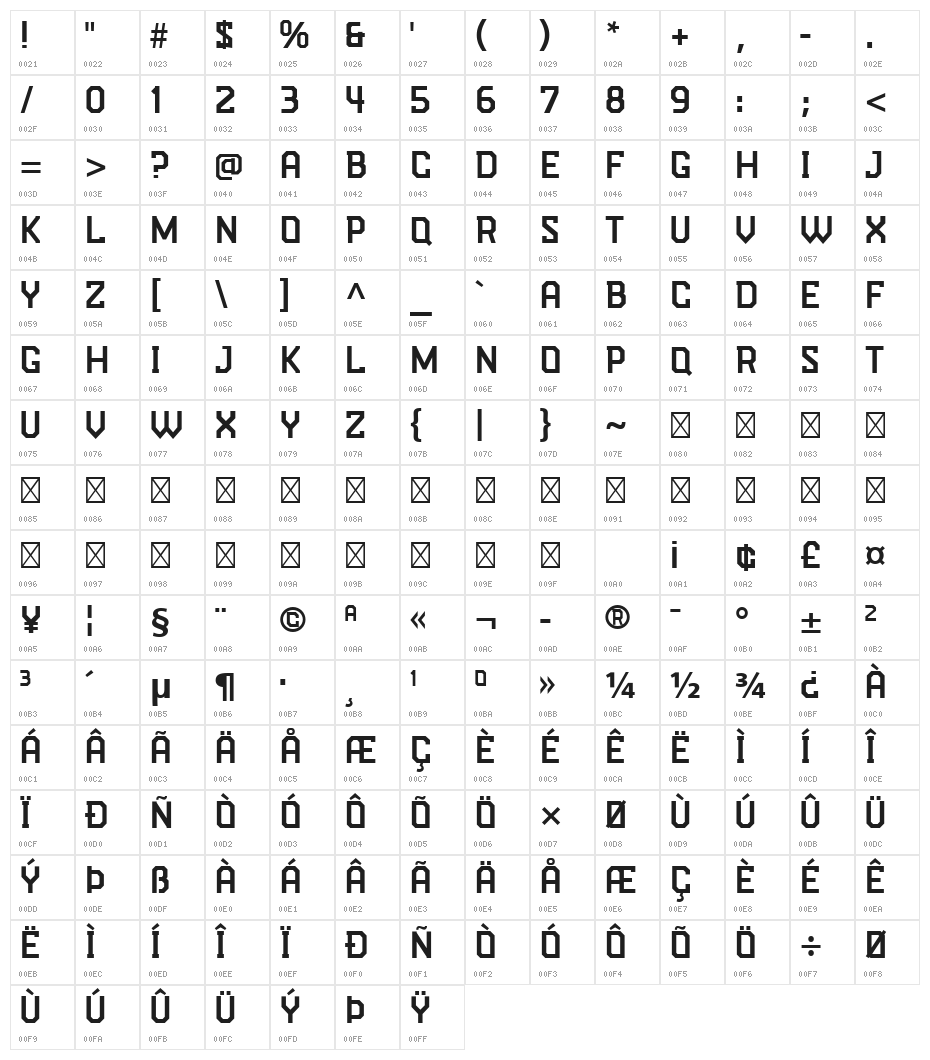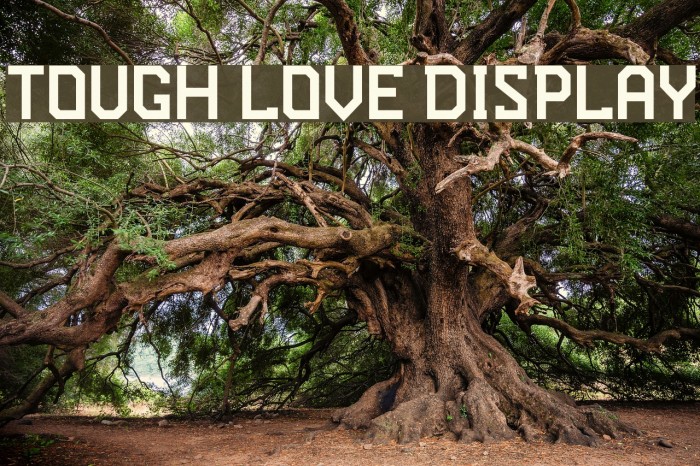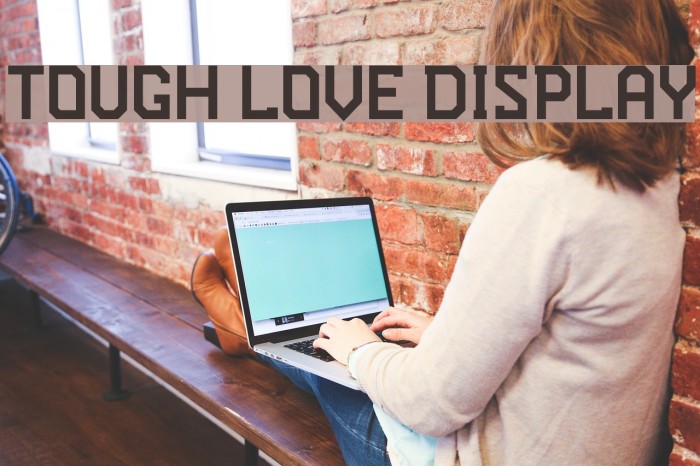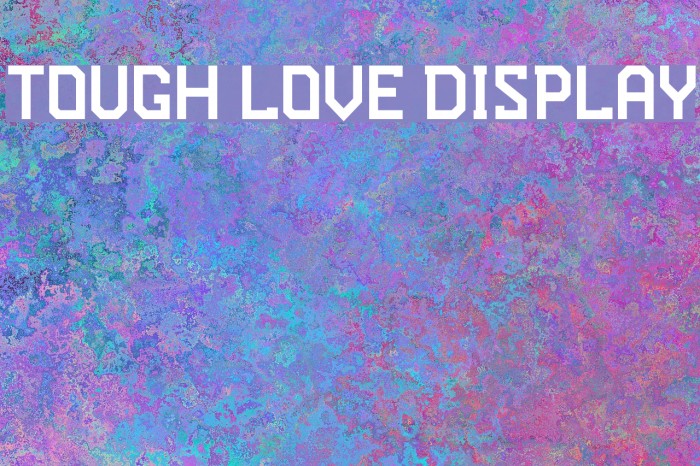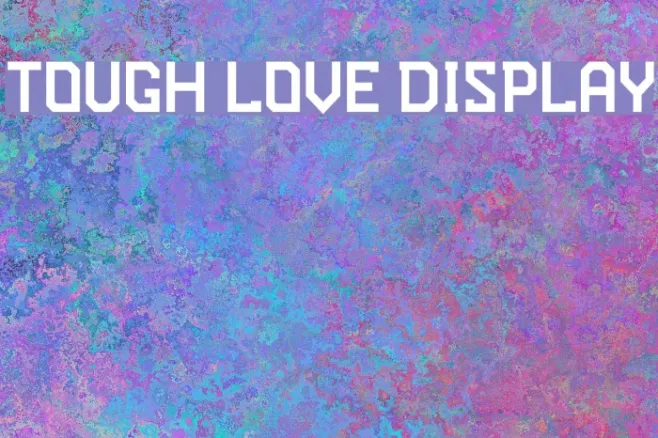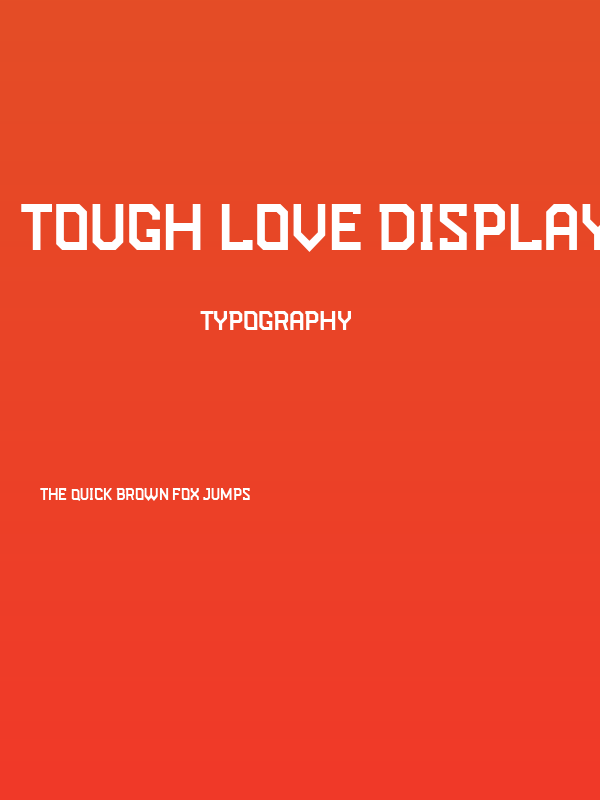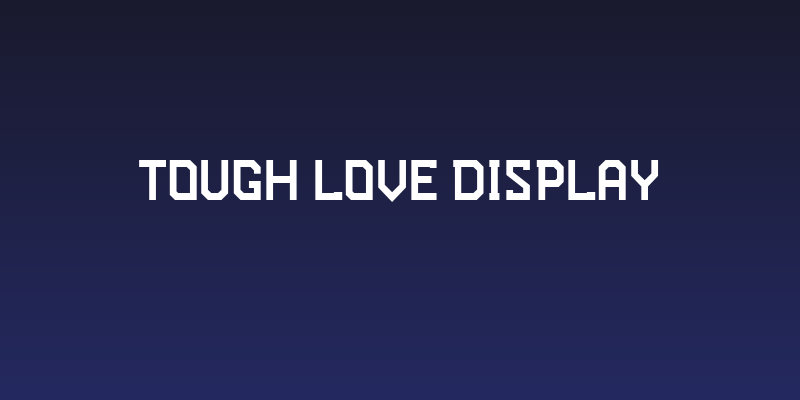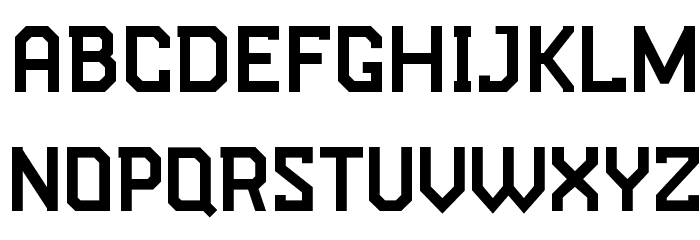
Tough Love Display Font
Tough Love Display Description
This font features a bold and geometric design with a strong, angular appearance. The characters are constructed with thick, uniform strokes that give it a robust and modern look. The uppercase and lowercase letters maintain a consistent style, with sharp edges and a blocky structure. The numerals and special characters follow the same design principles, ensuring a cohesive appearance across all glyphs. The font's boldness and distinct shape make it highly legible and impactful, suitable for attention-grabbing headlines and displays.
| Proposed Projects | Ideal for branding, posters, headlines, and any project requiring a strong visual impact. |